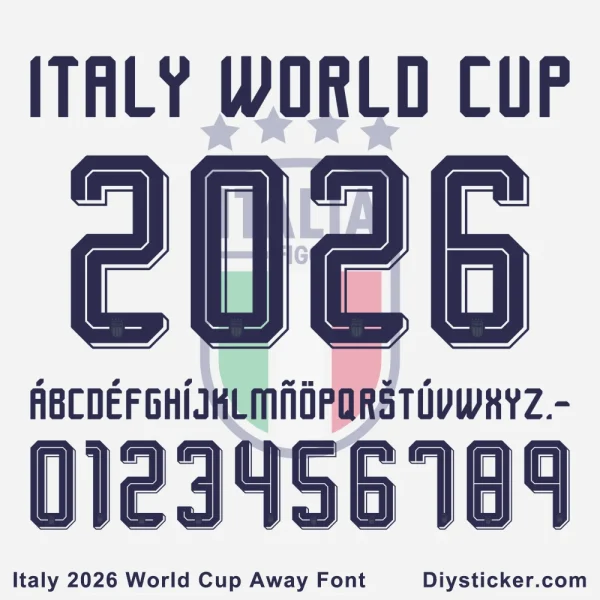
Italy 2026 World Cup Away Font
Italy 2026 World Cup Away Font – Complete Vector & Font Set
Bring the iconic style of the Italian national team to your creative projects with the Italy 2026 World Cup Away Font. Meticulously crafted to match the official typeface featured on Italy’s away kit for the 2026 World Cup, this font delivers authentic Italian football flair for designers, content creators, and passionate Azzurri supporters.
Whether you’re customizing jerseys, creating matchday posters, developing merchandise, or producing social media content, this font ensures crisp, accurate typography that captures the spirit and tradition of Italy’s 2026 World Cup campaign.